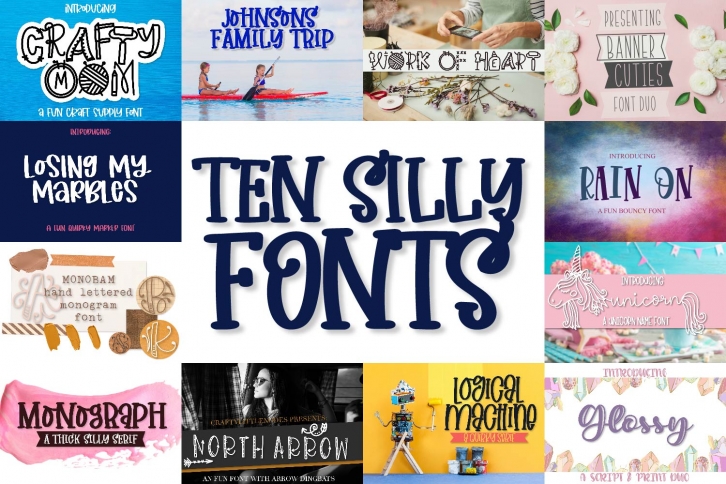
Ten Silly s is a beautiful font that was designed by Justina Tracy. It's a great choice for designers and creatives who need such a font. It was released on April 8, 2020 and the file size is 16.58 MB. Ten Silly s may give a more youthful, expressive and casual look to your project. It is a very beautiful, refined, elegant, and high-quality font.